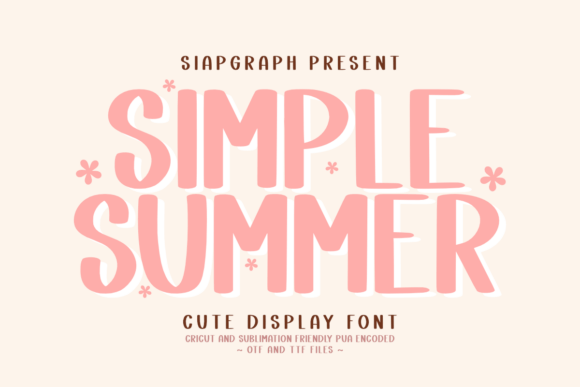
Simple Summer is a cute and funt display font unique with character.
Designed specifically for crafters, budding designers, POD sellers, and Cricut users.
This font is a creative solution to enhance your products from stickers, t-shirts, invitations,
labels, vinyl, to KDP interiors.